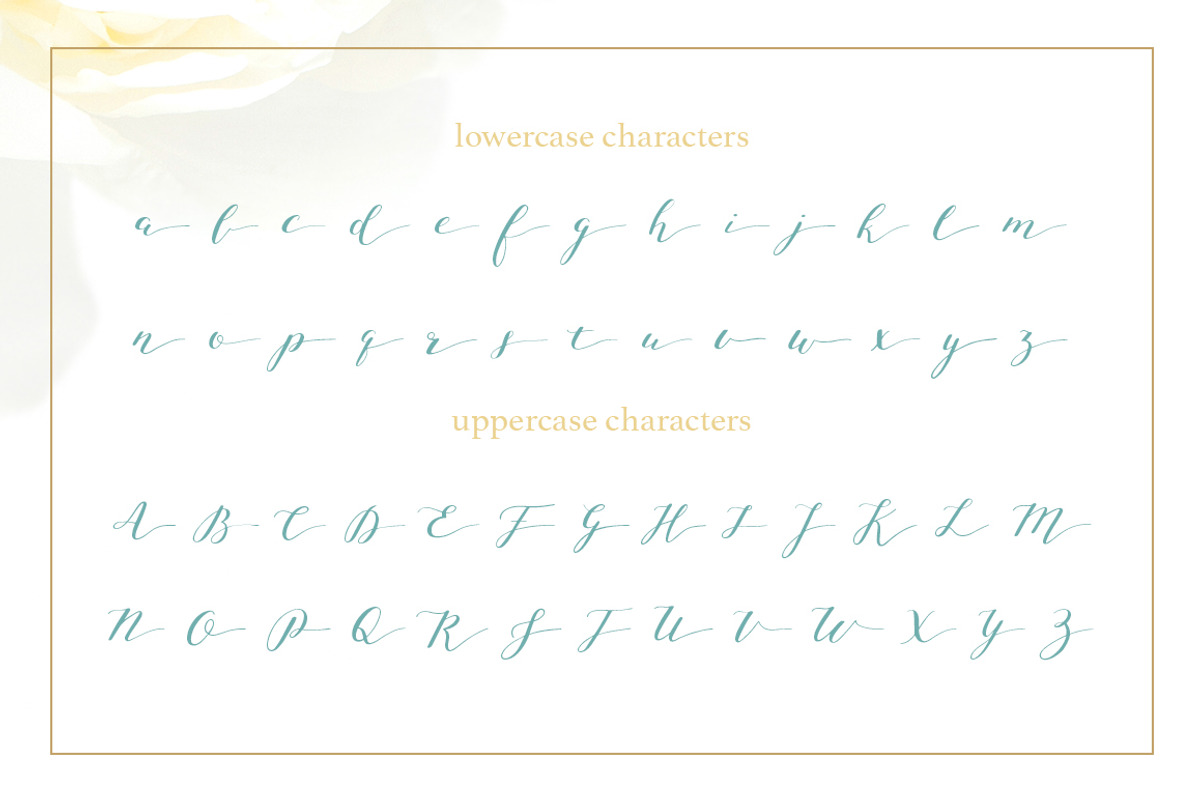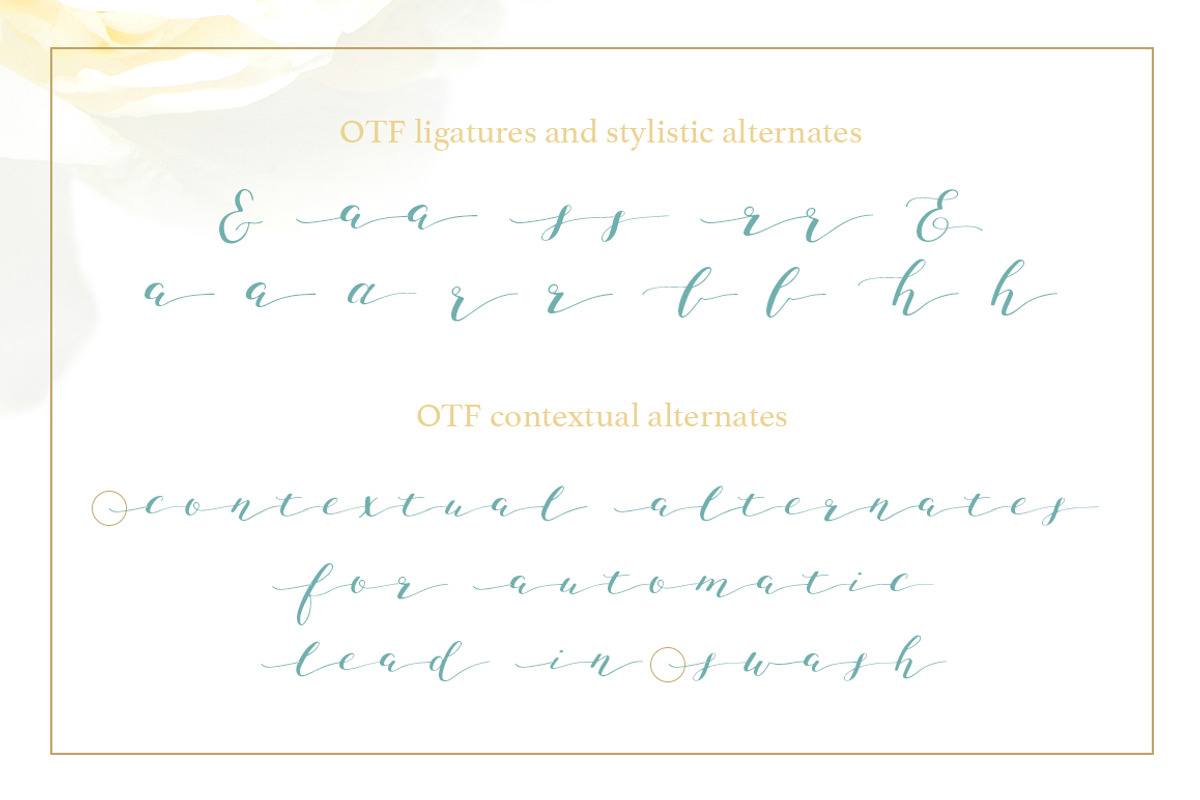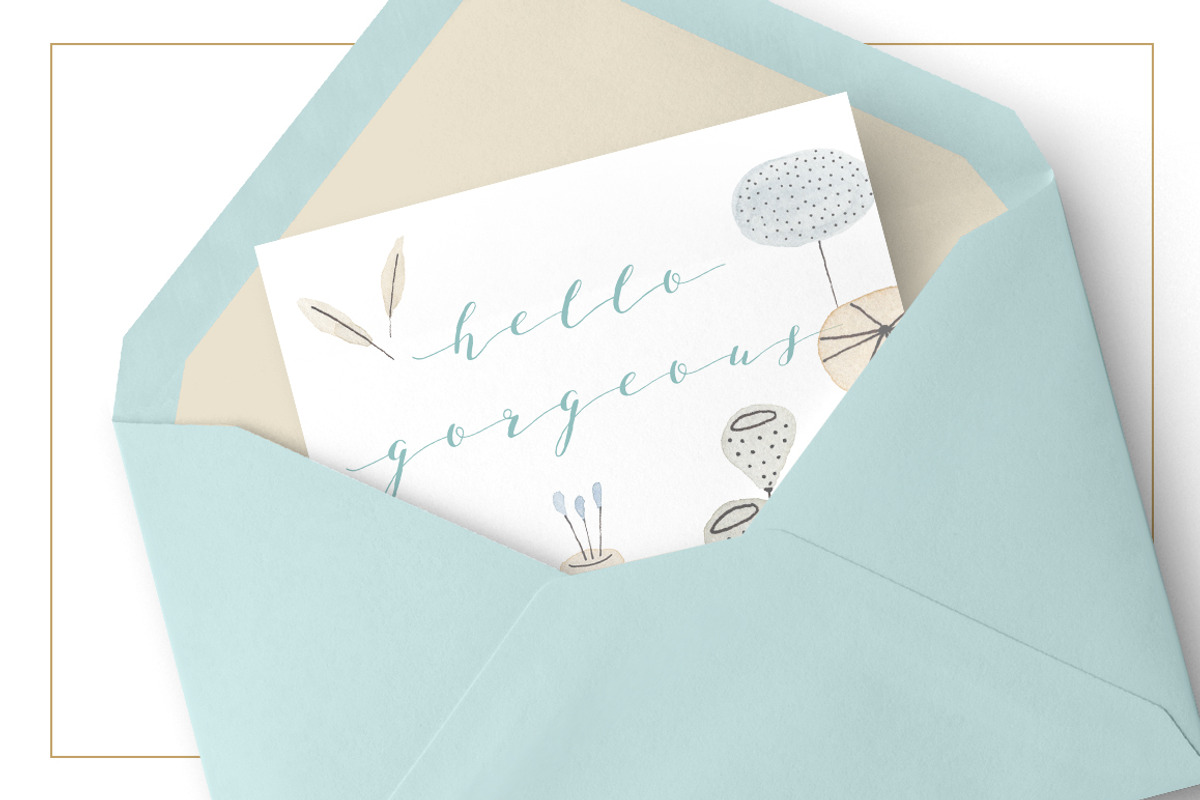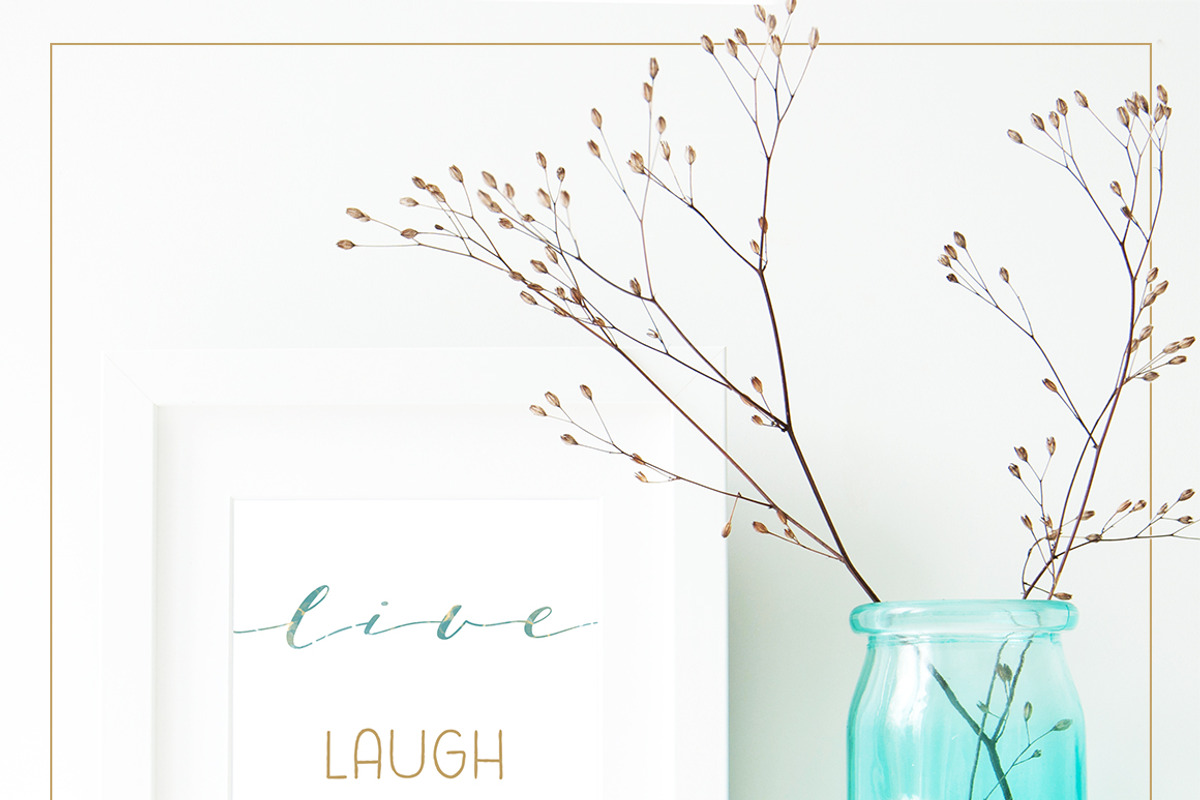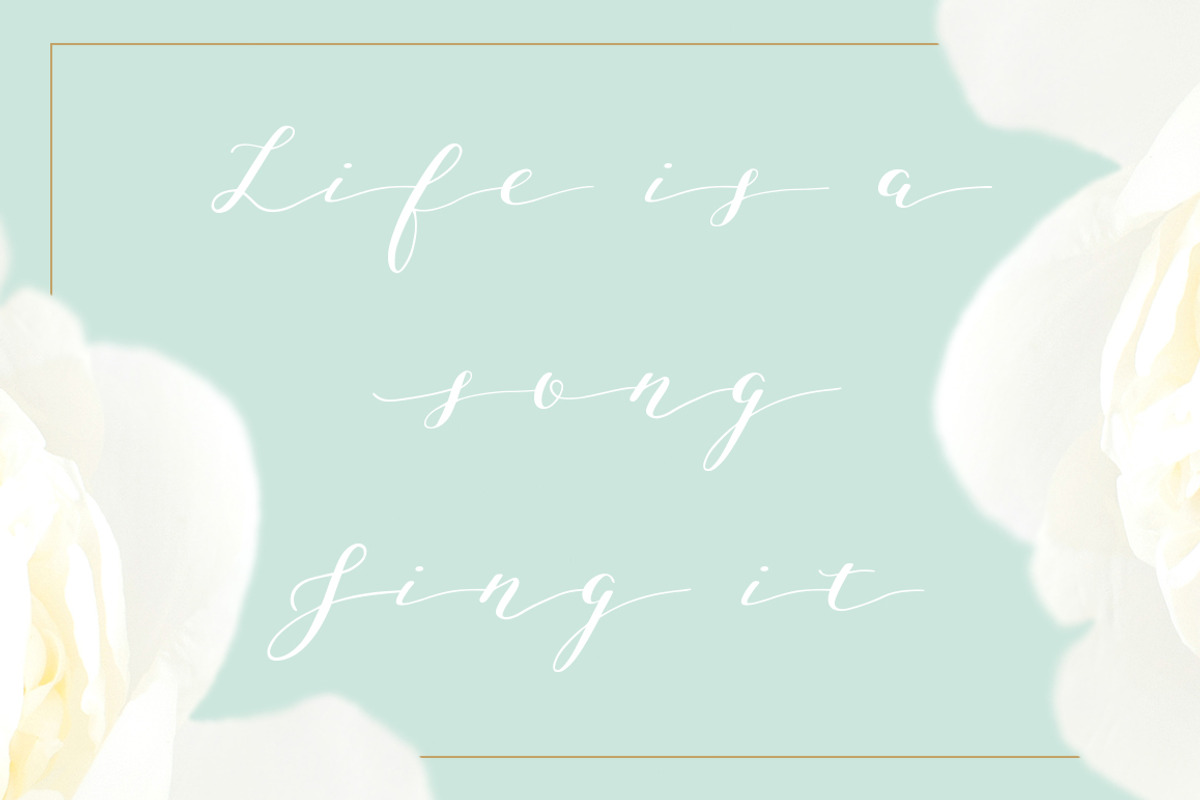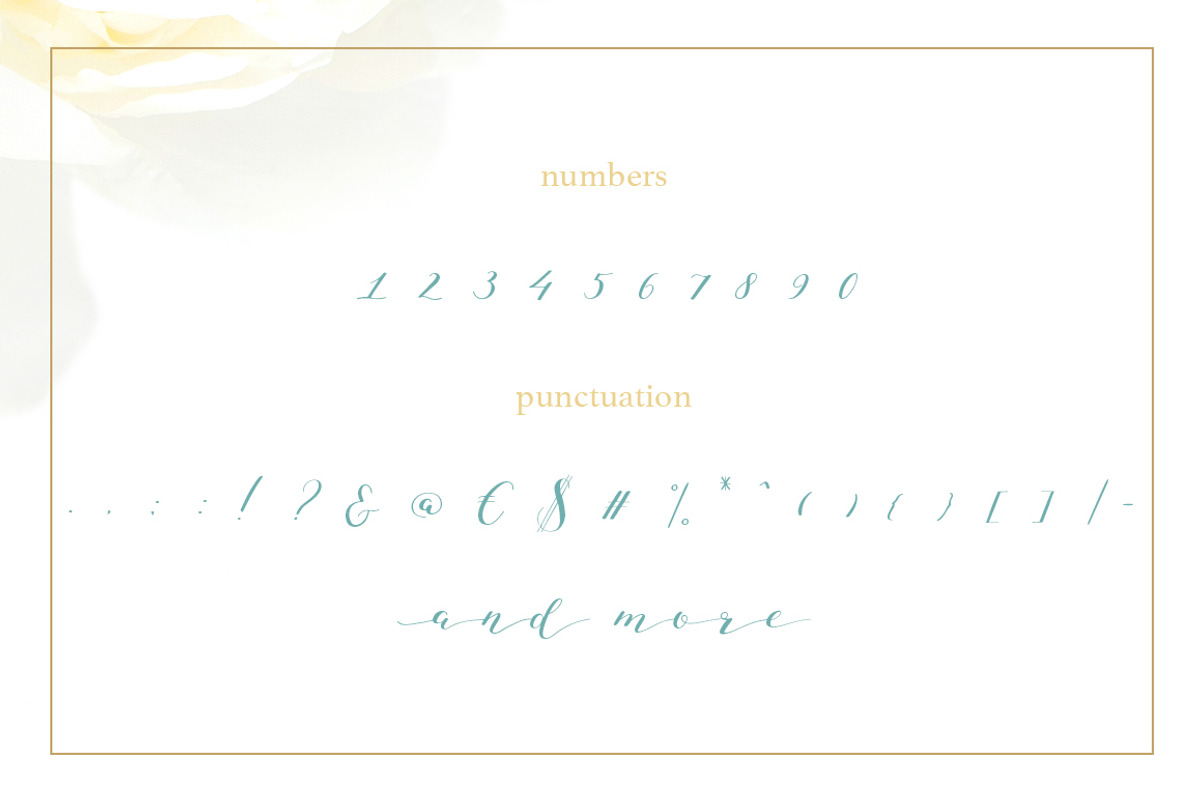
Joleni Modern Calligraphy font
- lead in swash without using automatic OTF feauture
- If you want the lead in swash as shown in the preview, type a § (section) symbol.